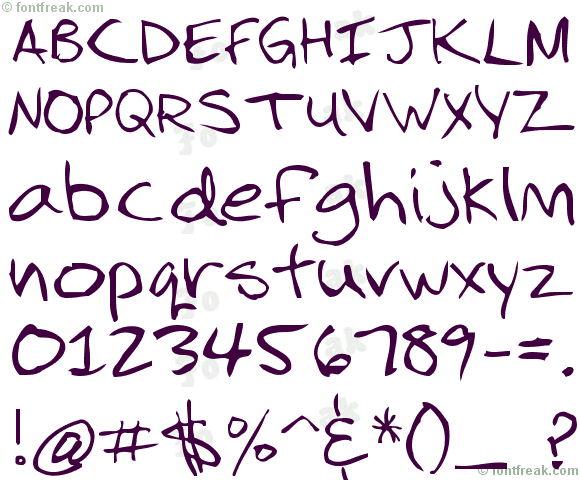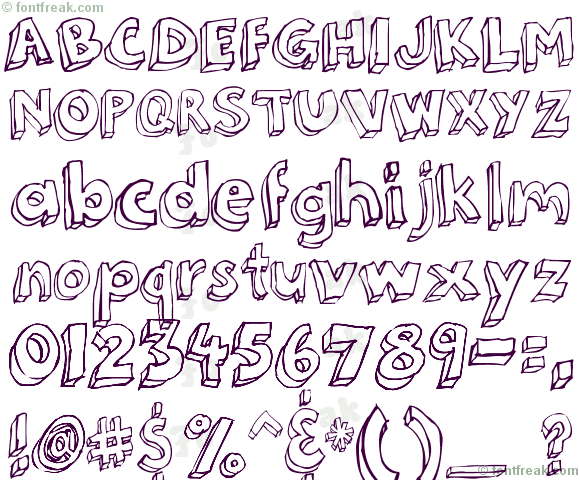
2Dumb
3Dumb
2Dumb — Character Map
3Dumb — Character Map
About 2Dumb
The 2Dumb font by Michael Tension is a unique display typeface characterized by its playful and slightly quirky design, making it a standout choice for a variety of creative projects. This font falls into the decorative category, featuring a bold and unconventional aesthetic that captures attention. The stroke weight is consistent, providing a sturdy look that enhances legibility while maintaining a fun flair. With minimal contrast and well-balanced spacing, 2Dumb ensures that each letter remains distinct, making it ideal for attention-grabbing headlines and titles.
Best suited for projects that require a touch of whimsy, the 2Dumb font shines in contexts such as children's book covers, party invitations, and vibrant marketing materials. Its playful nature lends itself well to areas like social media graphics, where eye-catching text can engage audiences effectively. Small business owners and graphic designers will find this font particularly valuable for creating memorable branding elements or promotional content that stands out in a crowded marketplace.
The target audience for the 2Dumb font includes graphic designers, content creators, and small business owners looking to infuse a sense of fun and creativity into their work. This font can help convey messages in a lighthearted manner, perfect for brands aiming to connect with a youthful demographic or those wanting to add a dash of humor to their communications.
What sets the 2Dumb font apart is its ability to blend simplicity with a distinctive personality, making it versatile for various applications. Whether you are designing a quirky logo or a vibrant poster, the 2Dumb font free download provides an easy way to enhance your creative projects with a touch of individuality. This typeface is a must-have for anyone looking to make a bold statement with their typography.